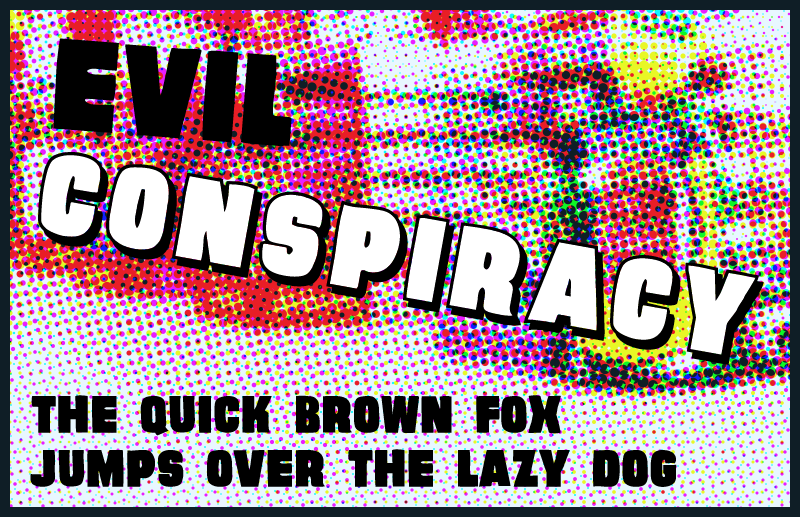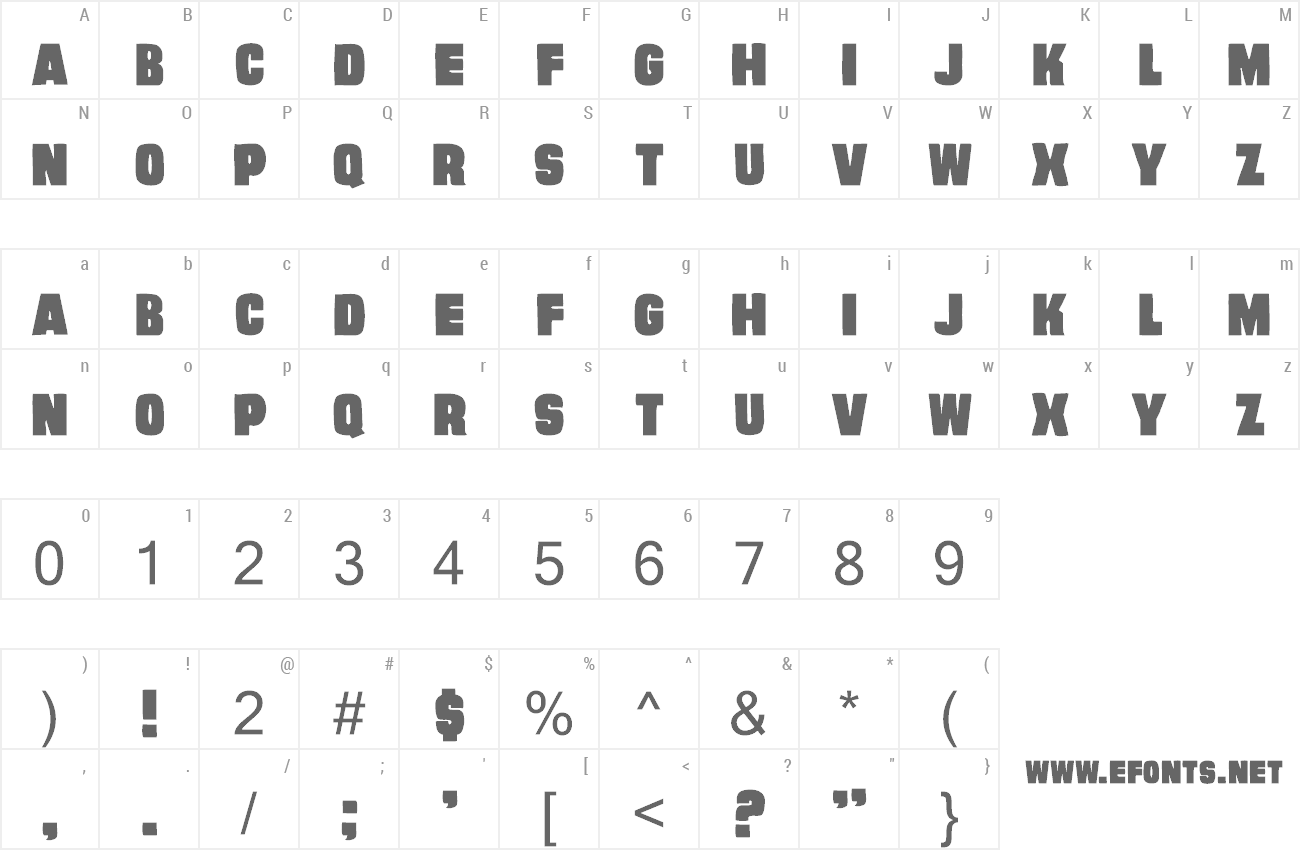
Font name: | Evil Conspiracy |
Author: | Frederic |
Note by Frederic | |
Evil Conspiracy is a font inspired by vintage posters from the 60's. This font is free for personal use. If you wish to use it for a commercial purpose, please contact me: contact [at] fthafm [dot] com Facebook: http://www.facebook.com/fthafm | Website: http://www.fthafm.com/ |